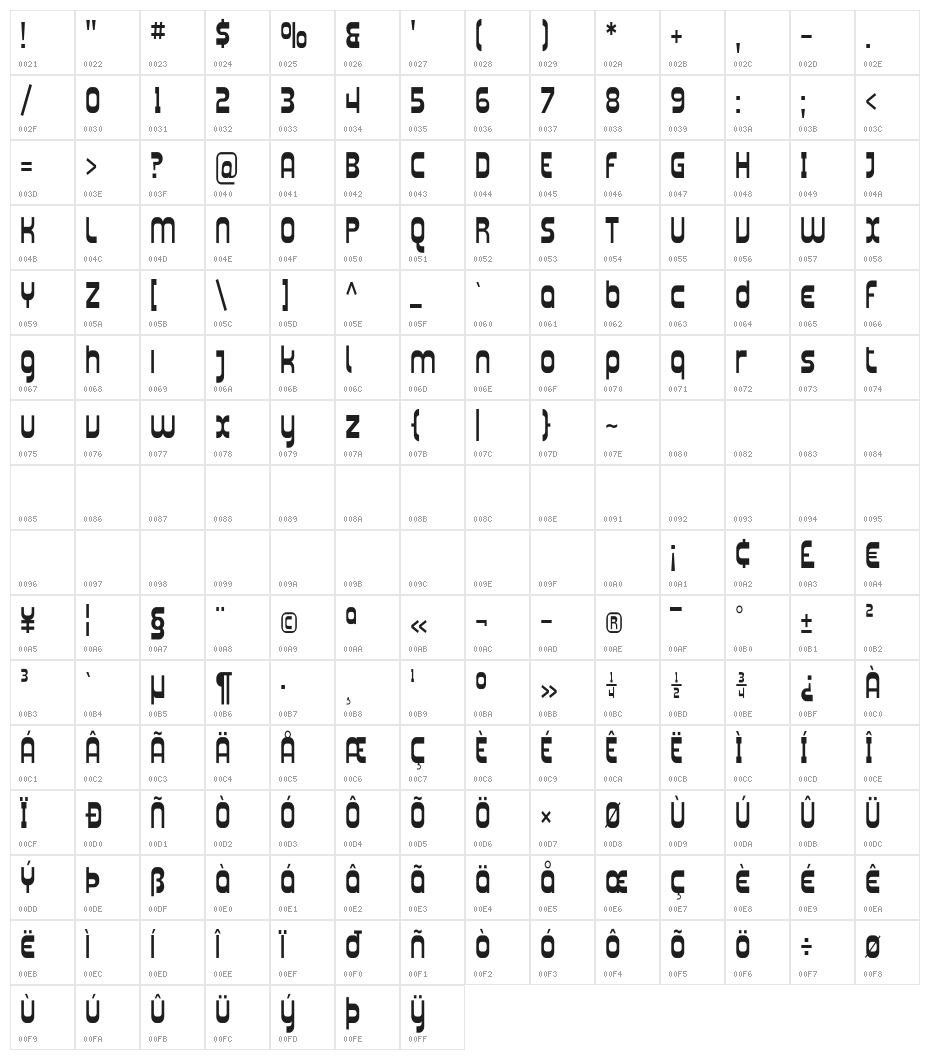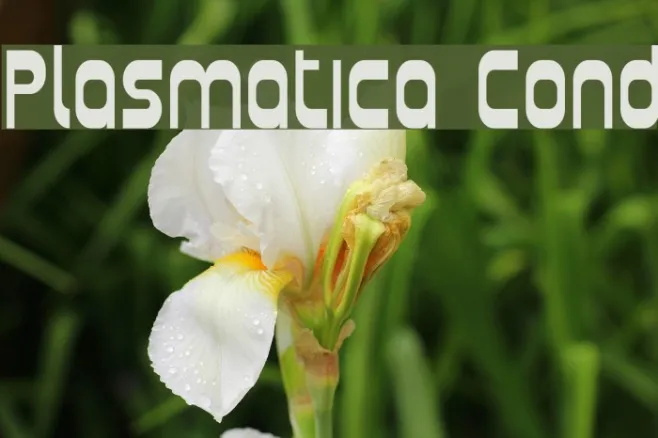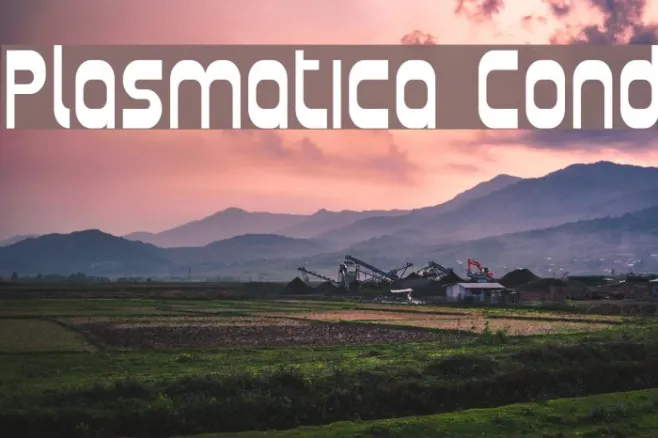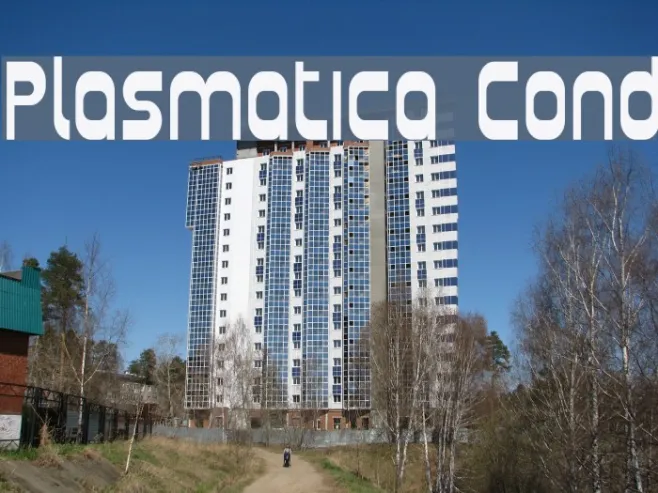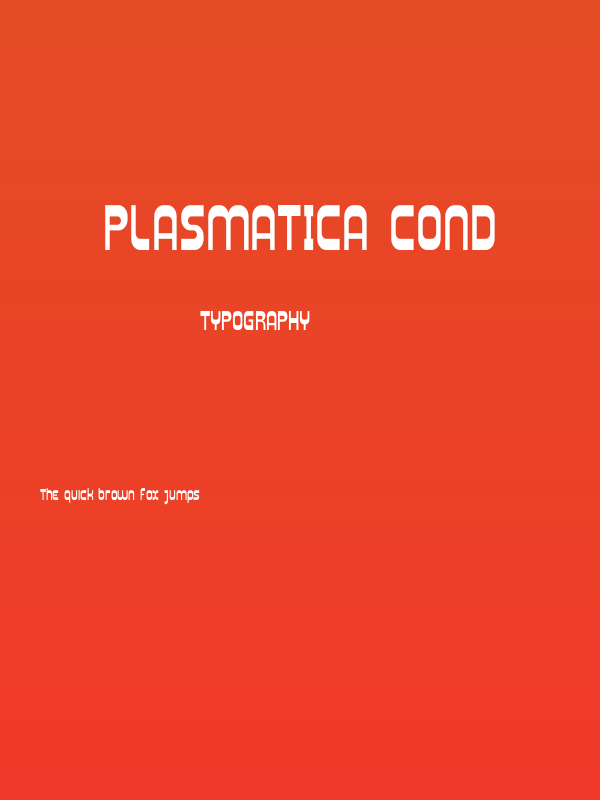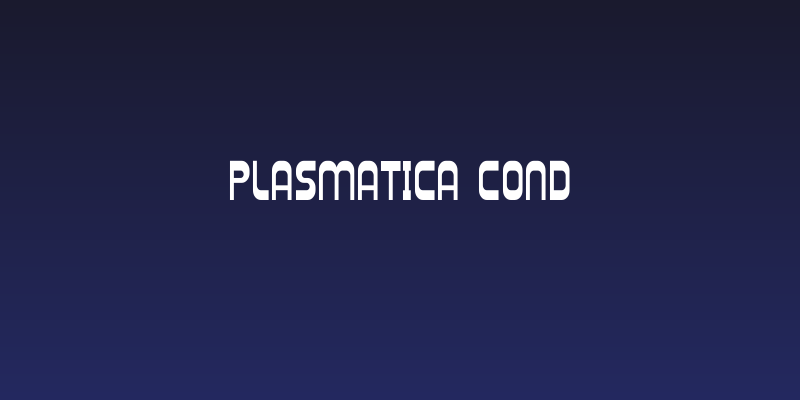
Plasmatica Cond Font
Plasmatica Cond Description
This font features a modern, geometric design with a distinctively bold and rounded appearance. The characters are uniformly structured, offering a futuristic and sleek aesthetic. The uppercase and lowercase letters maintain a consistent style, with smooth curves and clean lines that enhance readability. The numerals and special characters are designed to match the overall theme, providing a cohesive look across all elements. This font's condensed width allows for efficient use of space, making it suitable for various design applications where a contemporary and stylish impression is desired.
| Use Case | Headlines, Logos, Digital Interfaces |
| Proposed Projects | Ideal for tech branding, modern advertising, digital interfaces, and futuristic-themed designs. |